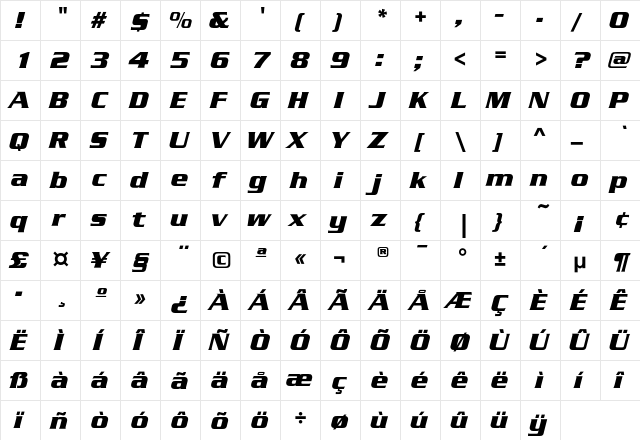
SerpentineEF BoldItalic
Design Context for SerpentineEF Typeface
SerpentineEF is a composed and adaptable typeface that performs quietly and consistently across a wide range of design contexts. The dynamic lean of this cut emphasises speed and emphasis in any layout. The heavy weight commands attention and anchors typographic hierarchies.
Pro Tip: Use SerpentineEF for emphasis, pull quotes, and subheadings where its slanted energy can add rhythm to the layout.